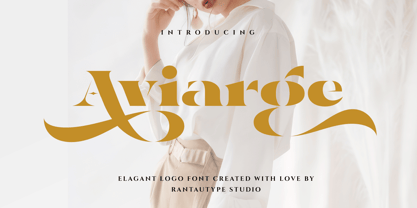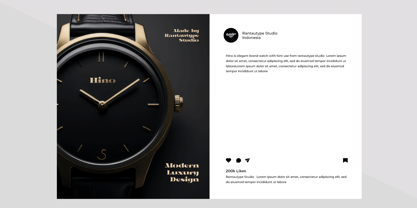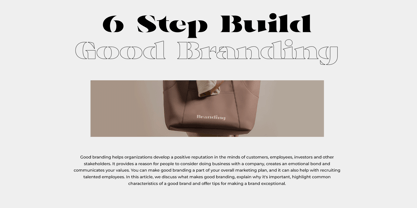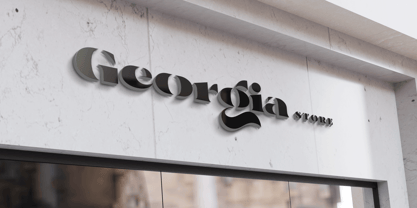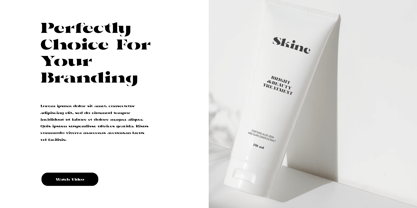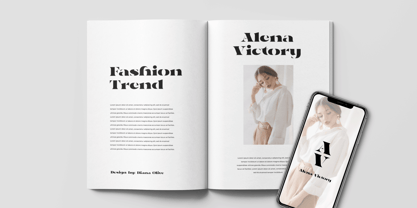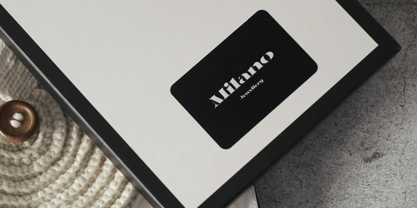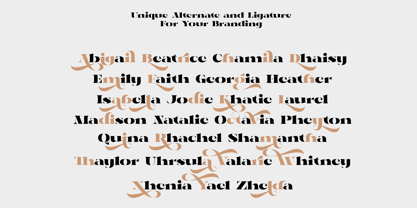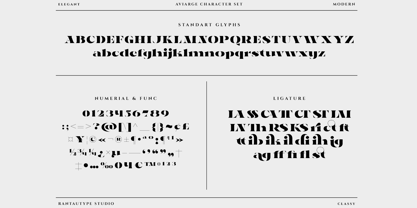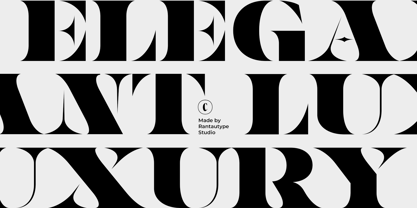
Aviarge
La familia tipográfica Aviarge fue diseñada por Yudi Pratama Chandra y publicada por RantauType. Aviarge contiene 2 estilos y opciones de paquete familiar. Más información sobre esta familia
Aviarge is most suitable for use in LOGO BRAND but does not rule out the possibility of being used in various designs. Aviarge font inspire by famous fashion branded with embraces elegance and grace. Avirage come delicate curves and refined details create a sense of sophistication and femininity. We love how each character formed look elegant and professional.
Aviarge is a perfectly choice for any creative endeavor, chic, lifestyle design such as logos, advertisements, watermark on photography, stationery, branding project, display and magazine, invitation, corporate brand, product design, label, business project and many other project with elegant touch.
• Standart Glyphs
• Numberial and Functional
• Alternate and ligature